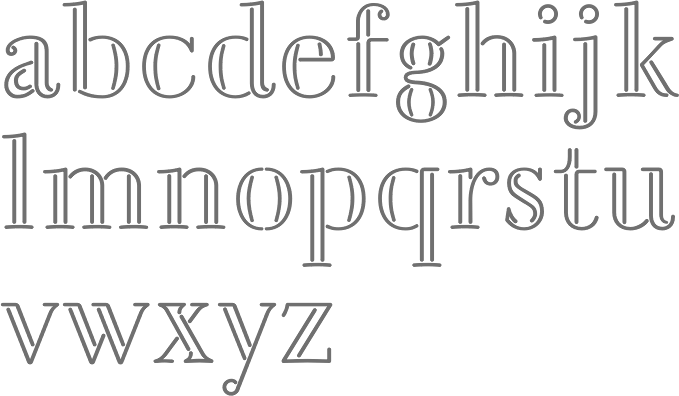
Timberwolf Type [Lars Bergquist]
Lars Bergquist is the Swedish type designer (b. 1936) who runs Timberwolf Type in Sollentuna, just outside Stockholm. Bergquist designed numerous successful text families and display typefaces, including the free Beryll typeface. In 2016, the collection moved over to (was bought by?) 3IP. Some offerings:
• Old Style romans: Sarabande (1998; based on Jean Jannon's famous "Garamond" of 1621), Pavane (1998, based on a text typeface by Rudolf Koch), Philomela (2000, also at PsyOps), Montrachet (2002, Fountain: a garalde family), Monteverdi (Fountain: with Granjon's Plantin Ascendonica italic).
• Baroque/transitional: Leyden, Leyden News (PsyOps, 2000), Baskerville 1757 and Baskerville Caps (1998; winner of a Bukvaraz award in 2001, available at Type Quarry).
• New Style Romans: Millennium, Eleonora (1999), Prospero (1998, a didone family), Waldstein (2003, Fountain: a Scotch typeface).
• Sans typefaces: Millennium, Millennium Sans, Millennium Linear, New Millennium, New Millennium Sans and New Millennium Linear (2000).
• Display typefaces: Diorite (2005, a calligraphic angular family), Corsiva Italica (2003), Paracelsus (2003, Fountain: a modern version of Schwabach), Foliant Blackletter (German 15th C Textur), Zeppelin Bauhaus Gothic, Berserk Scandinavian runes, Escorial (at PsyOps), Paestum (2001, a Greek simulation family), Sekhmet (2000), Praetorian, Pressroom (2003), Proconsular, Palaestra (the latter three are inspired by informal, painted Roman wall writing), Triumphalis Caps (also inspired by Roman imperial inscriptions), Bucintoro (1999, a modern version of the rotunda blackletter), Midnight (2000; a neon light/ blackboard bold family), Karolin Fraktur (at Psy/Ops: Fraktur modeled after the Bible of King Charles XII, printed in Stockholm in 1703), Rococo Titling (2001, ornate titling caps based on work done by Jacques-François Rosart (1714-1777) and Pierre Simon Fournier (1712-1768), and the Renaissance family Ronsard (at PsyOps, 2000).
Some fonts are available at Fountain, Psy/Ops and Type Quarry. Bukvaraz gave him an award for Absolut Type, a classic Renaissance family, so I wonder if that is not the same as Baskerville 1757. Lars says that Absolute Vodka complained, so the type is sold by Psy/Ops as Aalborg (2002). He published Whitenights at Linotype in 2003. FontShop link. Klingspor link.